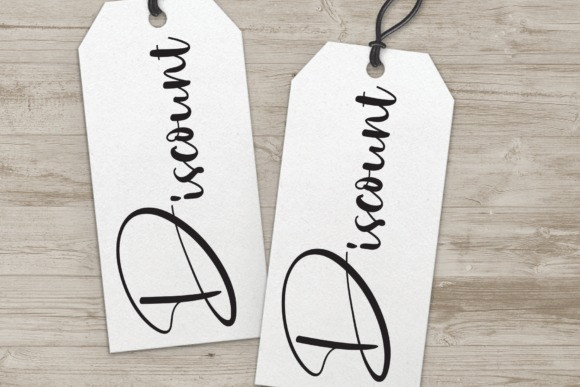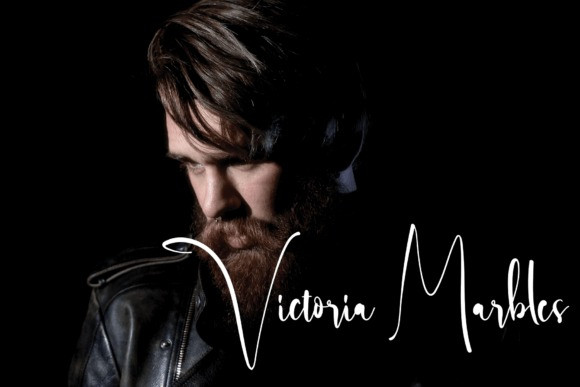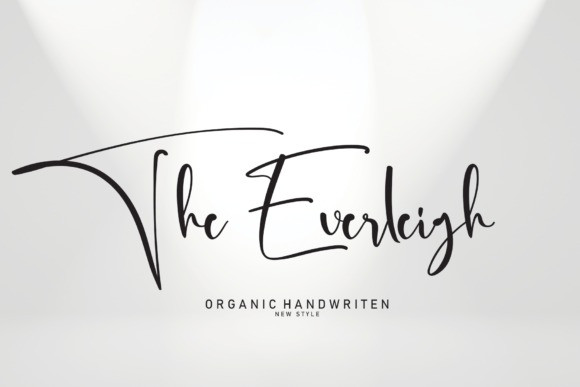
The Everleigh Font
The Everleigh Font is a dazzling script font. This font is neatly crafted and highly detailed. Whatever the topic, this font will be a wonderful asset to your font library, as it has the potential to enhance any creation.